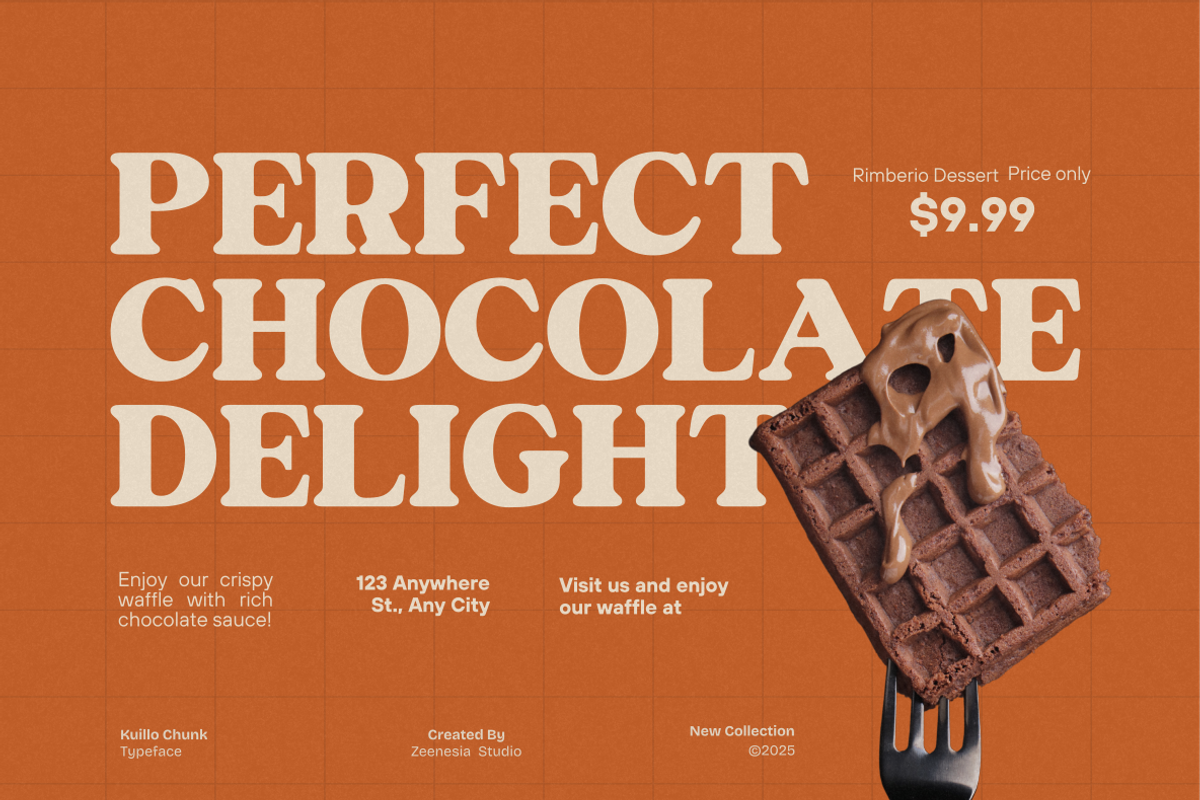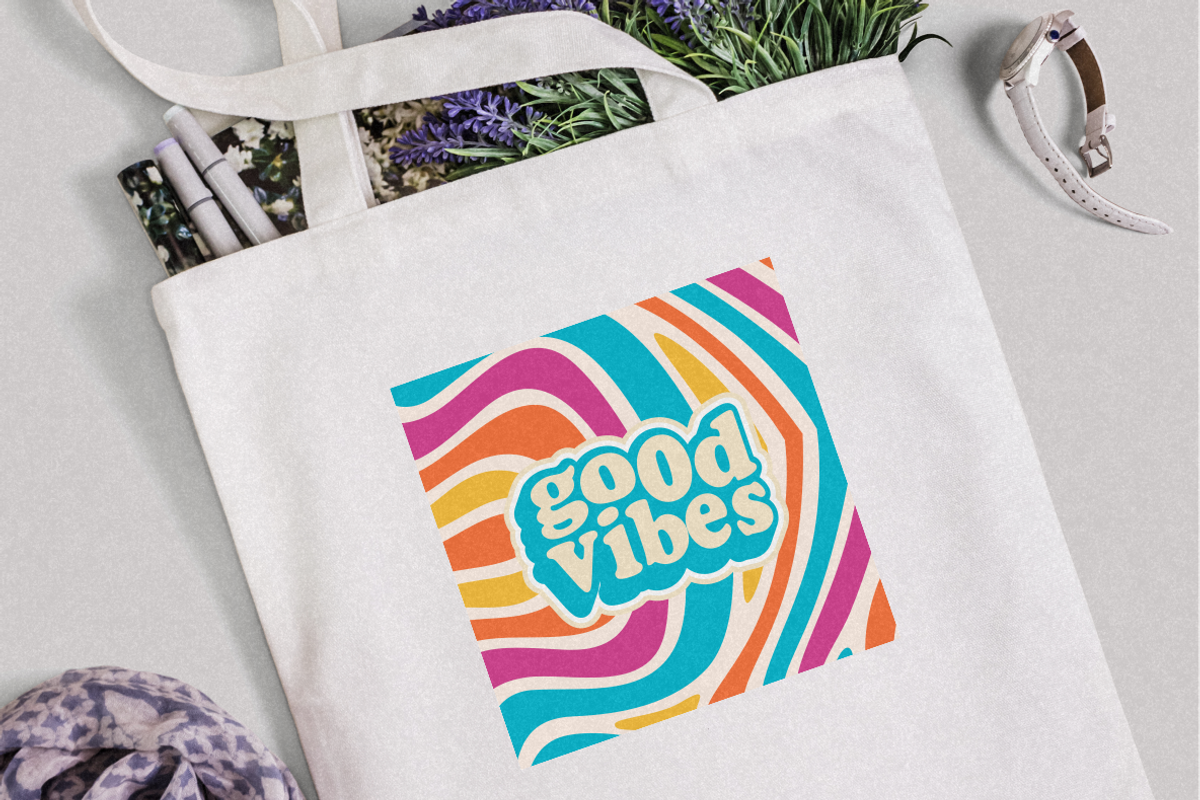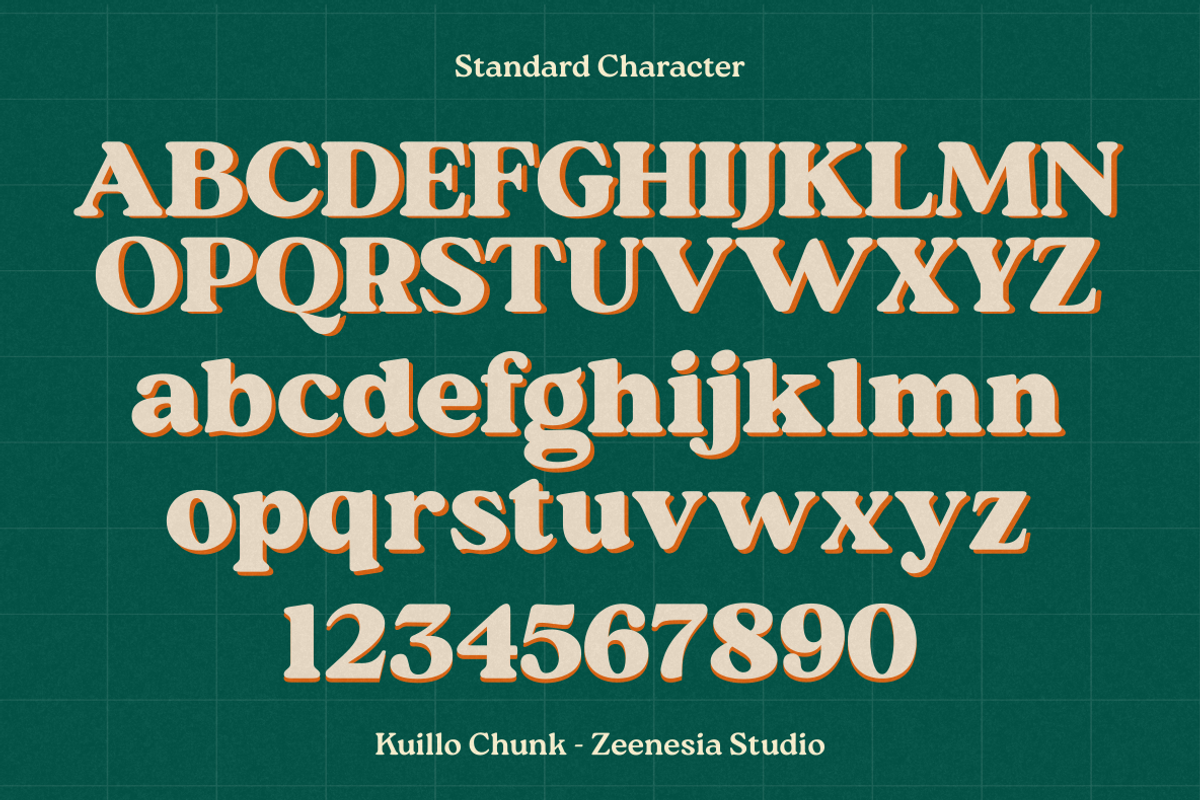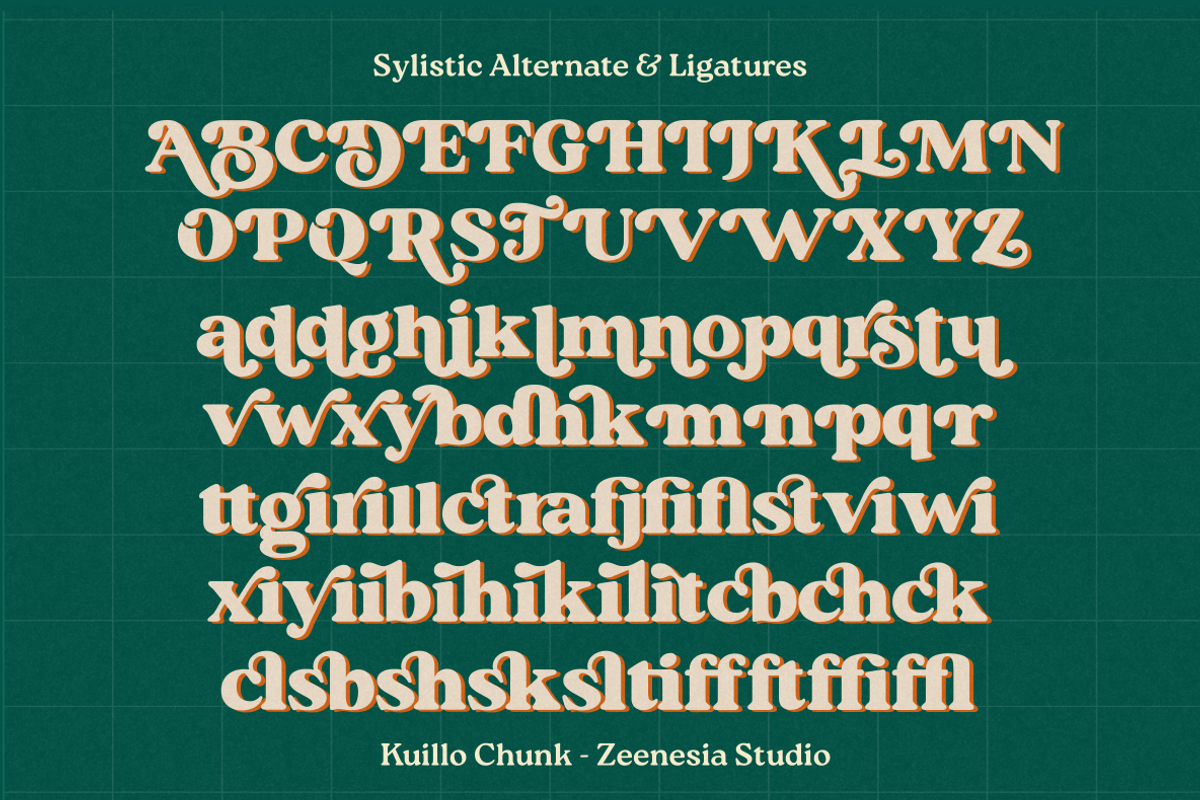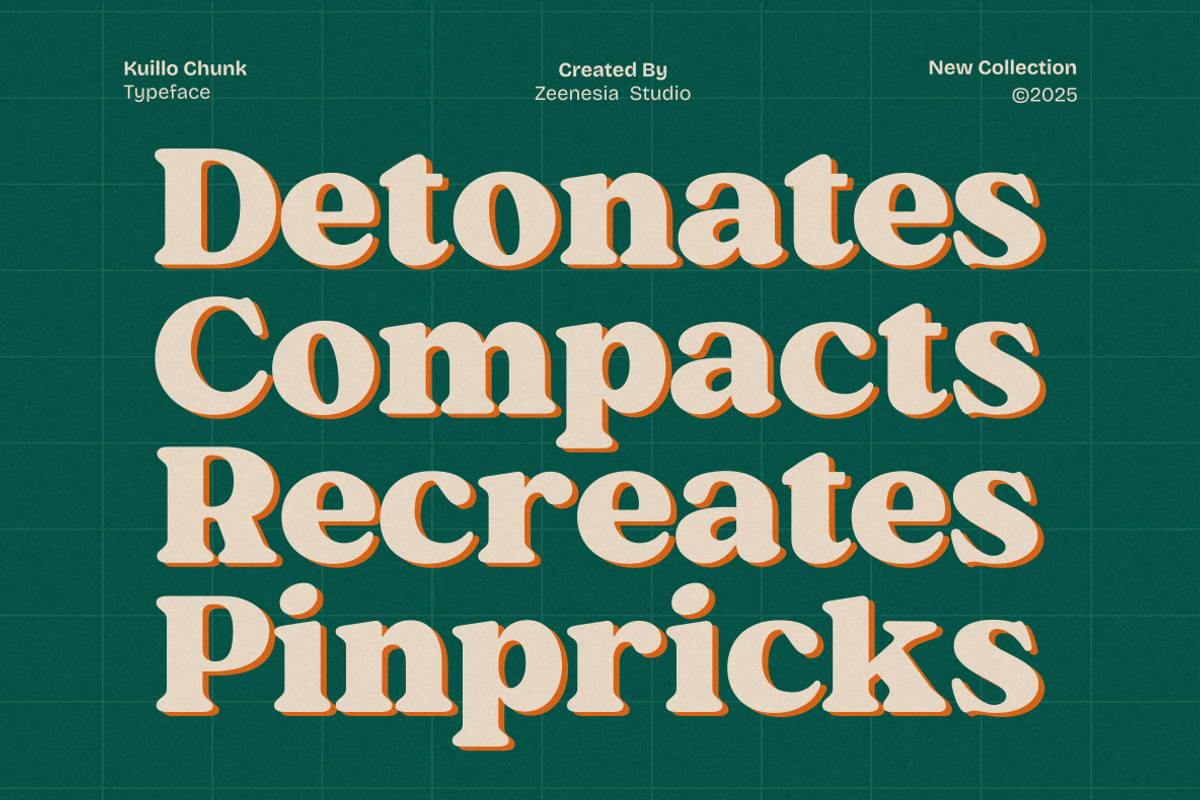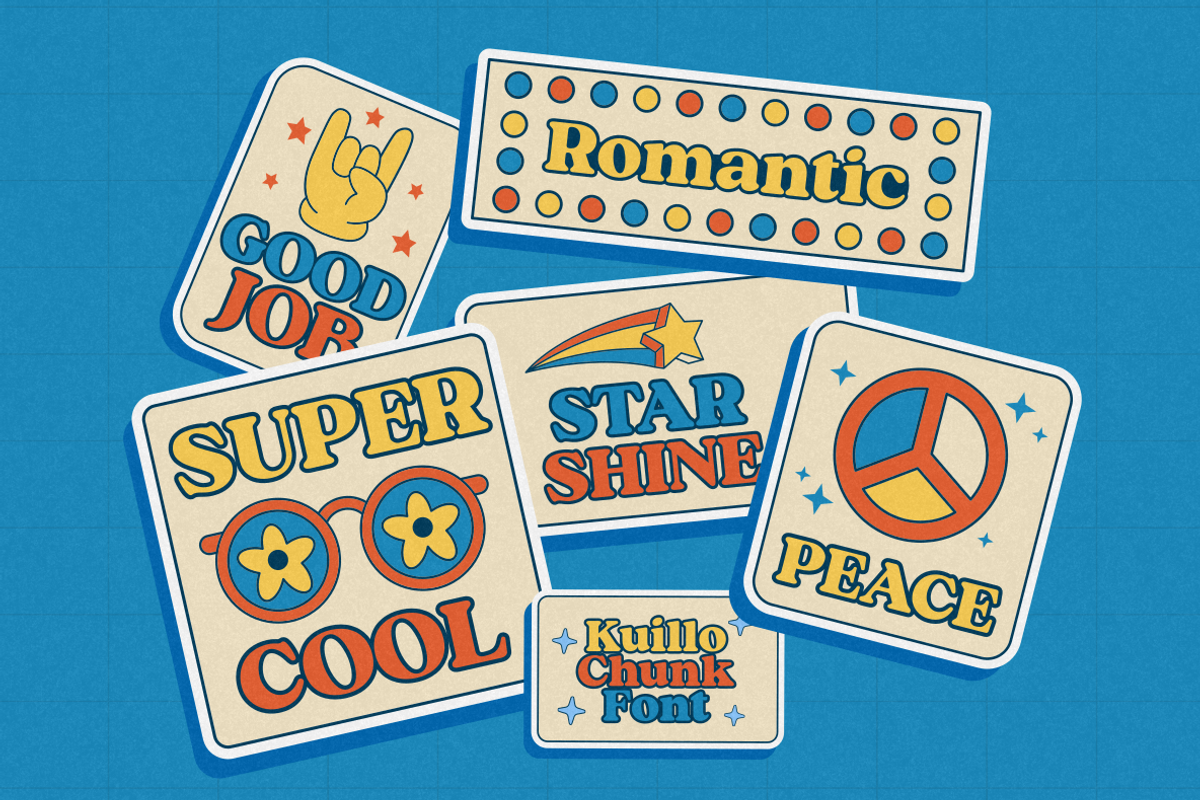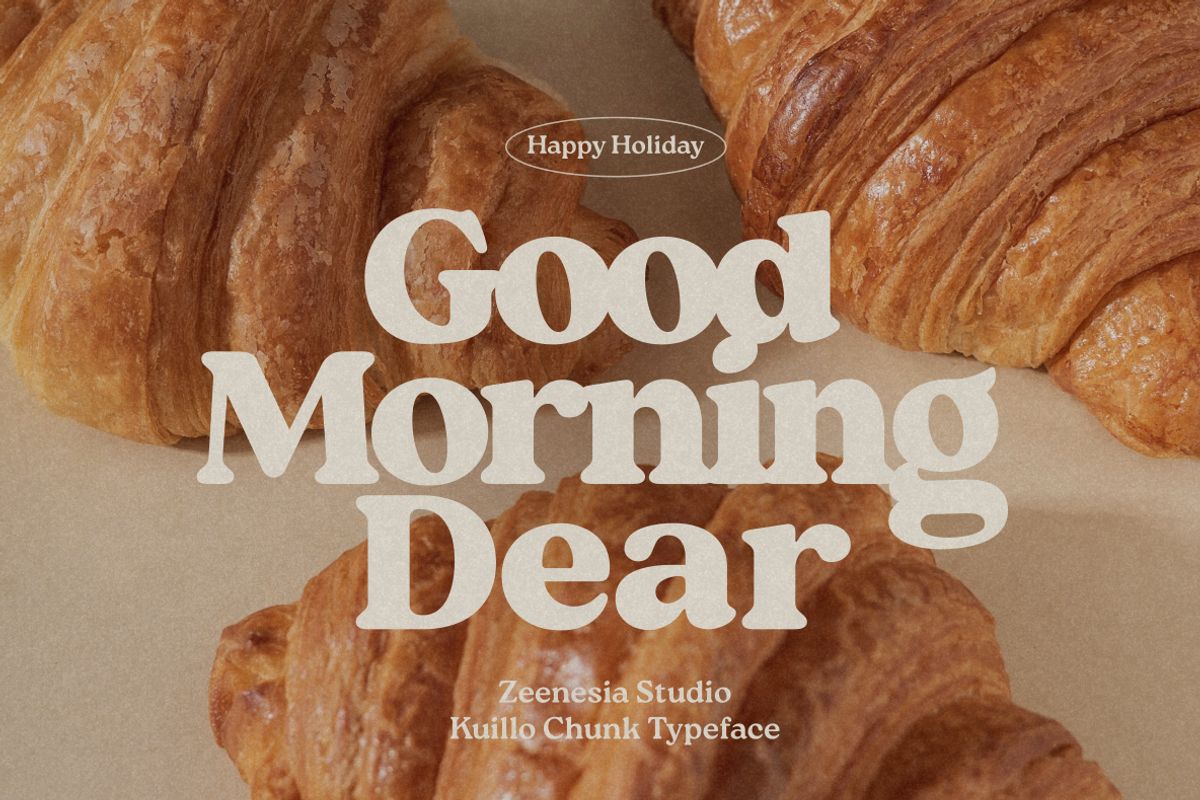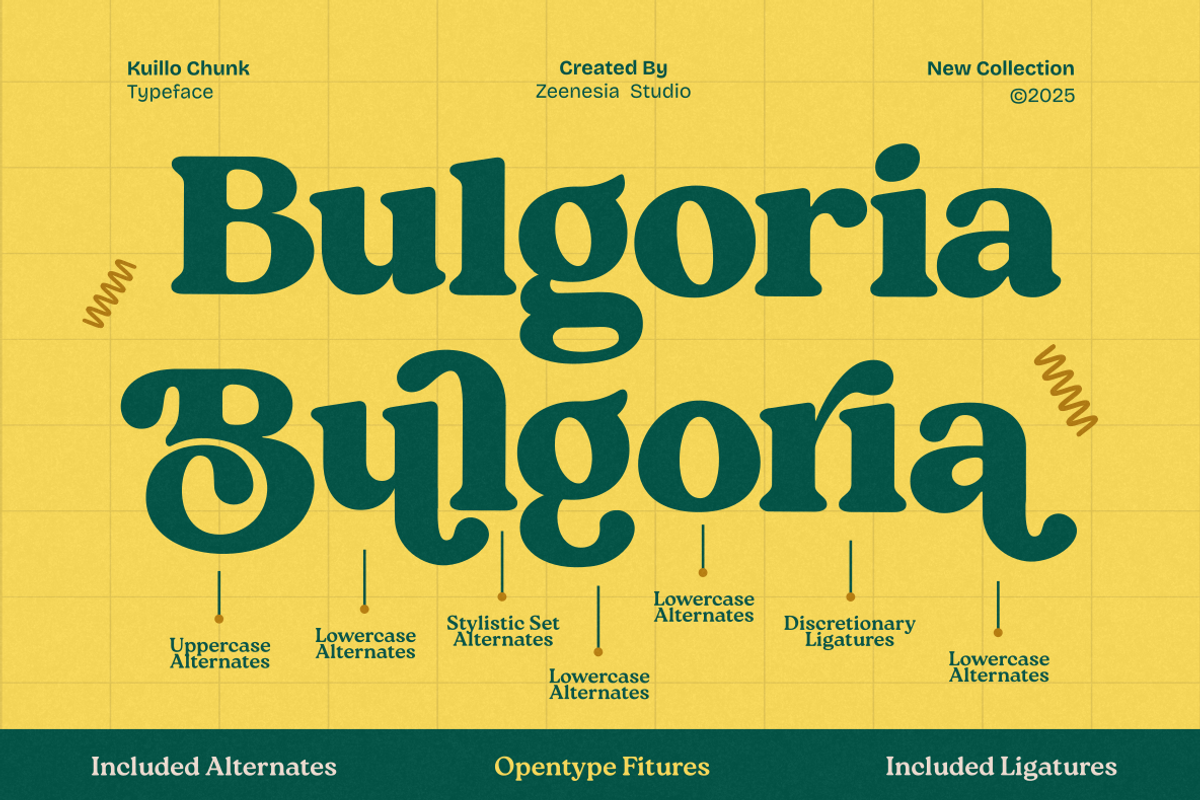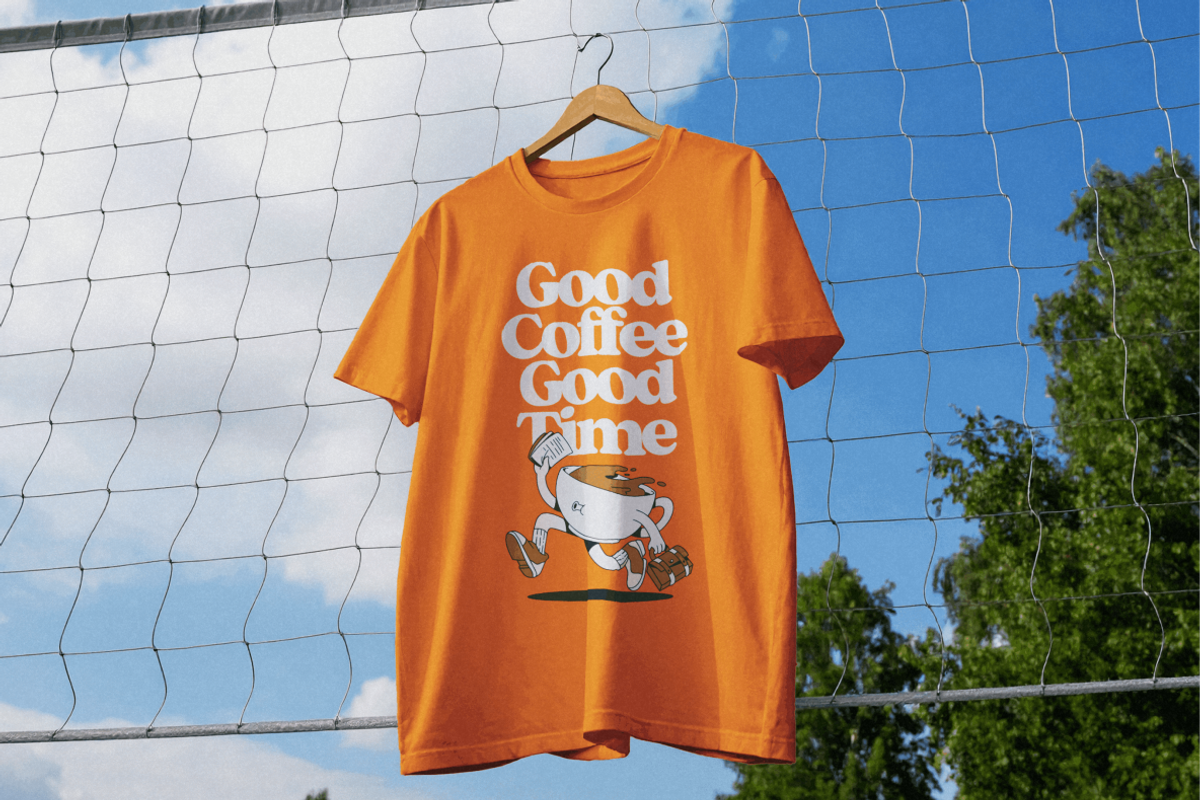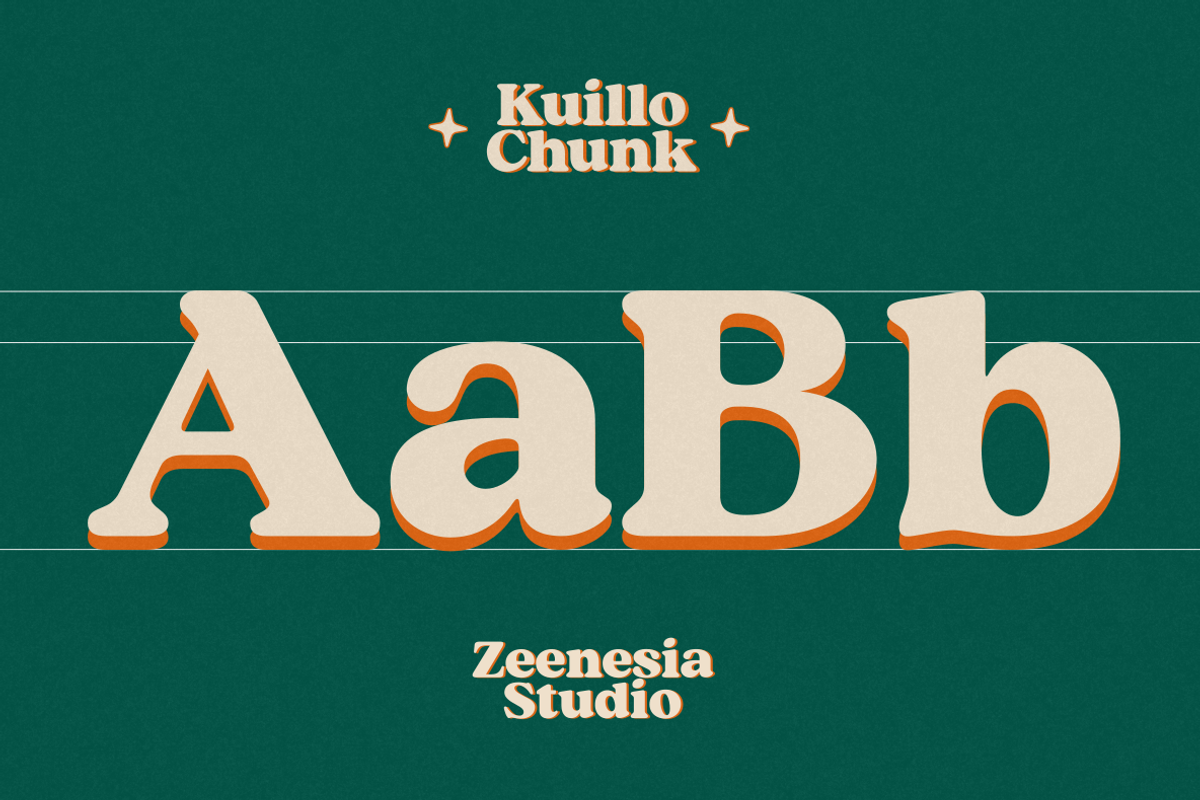
Kuillo Chunk
Kuillo Chunk is a bold serif typeface that blends playful charm with confident strength. Its chunky letterforms and smooth curves bring a friendly yet impactful personality, perfect for eye-catching headlines, logos, and creative branding projects. This typeface also includes alternates and ligatures, allowing you to add a unique and expressive touch to every design. Whether you’re creating vintage-inspired packaging, fun posters, or stylish social media graphics, Kuillo Chunk adds warmth and character to your typography.